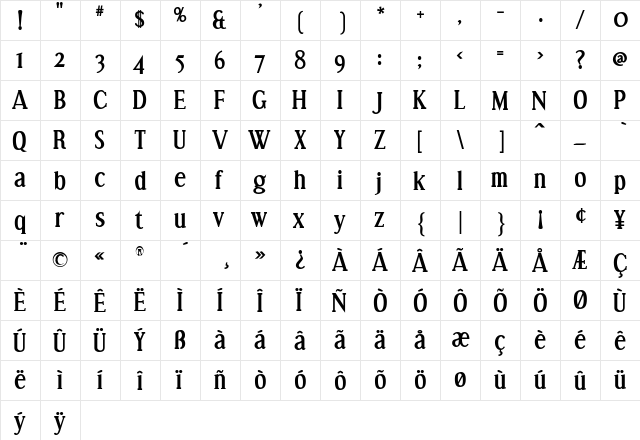
Effloresce Bold
Design Context for Effloresce Typeface
Effloresce takes a measured approach to typography — its balanced proportions and neutral character make it a reliable workhorse for both digital and print work. The heavy weight commands attention and anchors typographic hierarchies.
Pro Tip: Use Effloresce in both headline and body roles to test its range before committing to a single application.